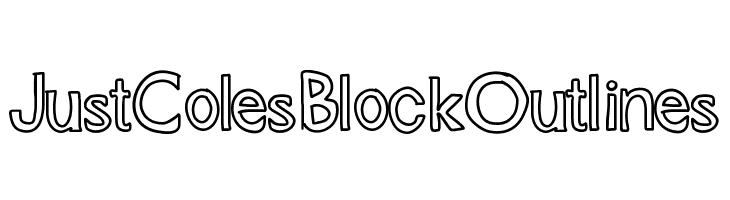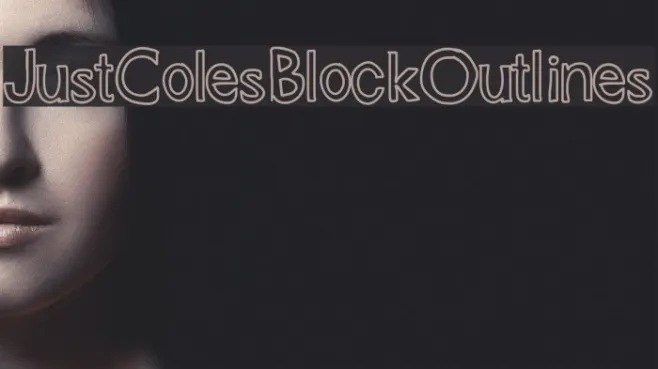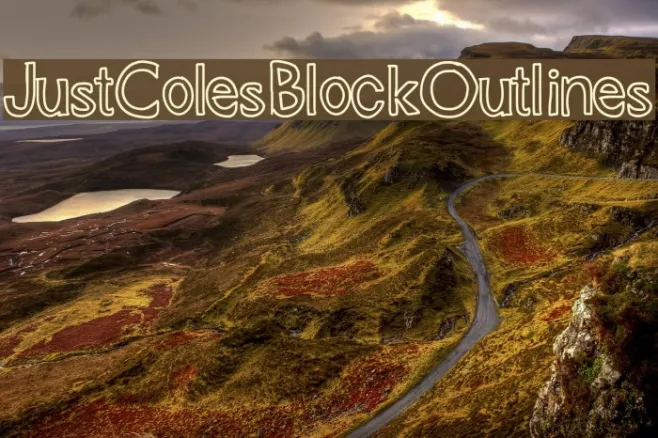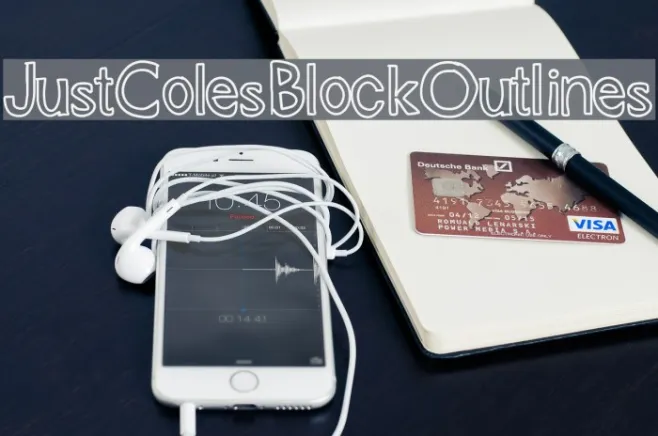
JustColesBlockOutlines Font
This font features a bold, outlined style with a playful and modern aesthetic. The characters are uppercase and lowercase letters, numerals, and a variety of special symbols. Each character is defined by a thick, consistent outline that gives it a blocky appearance, yet maintains a sense of openness and lightness due to the hollow interior. The font's design is clean and legible, making it suitable for eye-catching displays. The rounded edges of the characters add a friendly and approachable feel, while the uniformity in stroke width ensures a cohesive look across all glyphs.
A bold, outlined font with a playful and modern style.
- Proposed Projects: Ideal for posters, headlines, children's books, and playful branding.